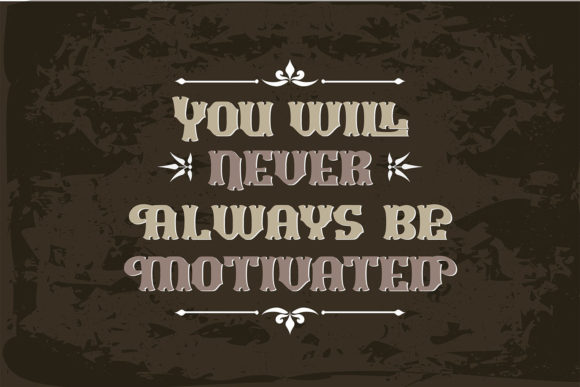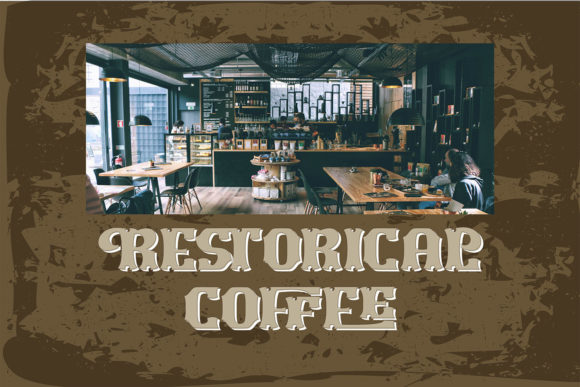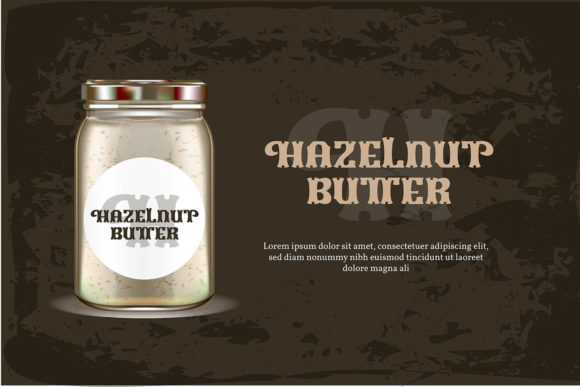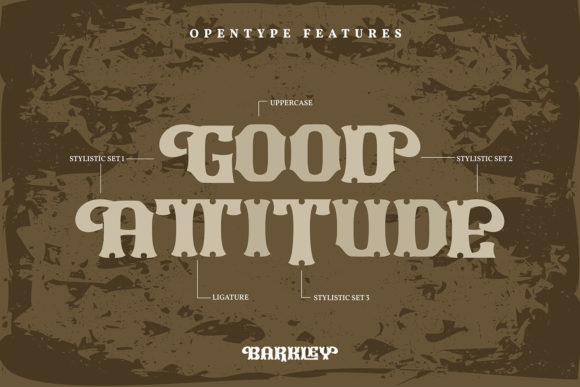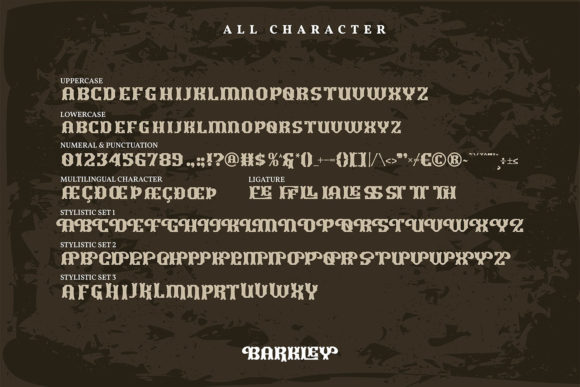
Barkley Font: Elevate Your Designs with a Vintage Flair
In the realm of typography, a font can make or break a design. It’s the backbone of any visual project, providing the tone, style, and overall aesthetic. For designers and crafters seeking a bold and vintage-inspired display font, look no further than Barkley. This stunning typeface is engineered to make your creative ideas shine, offering endless possibilities for a wide range of design applications.
The Distinctive Charm of Barkley Font
Barkley Font is a vintage-styled and bold display font that exudes a sense of nostalgia and sophistication. Its incredibly distinct design ensures that your projects stand out from the crowd, grabbing attention and leaving a lasting impression. Whether you’re working on a logo, poster, packaging, or any other visual material, Barkley is the perfect choice to add a touch of elegance and character.
Key Features of Barkley Font
- Bold and Eye-catching: Barkley Font is designed to make a statement. Its bold and sturdy structure ensures that your text is always visible and attention-grabbing.
- Vintage Inspiration: Drawing from classic typography, Barkley boasts a unique vintage flair that adds a touch of sophistication and nostalgia to your designs.
- Highly Versatile: From logos and branding to posters, flyers, and packaging, Barkley Font is incredibly versatile and can be used across various design projects.
- Easily Readable: Despite its bold nature, Barkley Font remains highly readable, making it perfect for headlines, titles, and short paragraphs of text.
Endless Design Possibilities with Barkley
One of the most significant advantages of Barkley Font is its adaptability. Designers and crafters can experiment with various design elements, such as colors, textures, and patterns, to create unique and captivating visuals. Here are a few ideas to get you started:
- Logos and Branding: Use Barkley Font to create memorable logos and brand identities that stand out in a crowded market.
- Posters and Flyers: Add a vintage touch to your promotional materials with Barkley Font, making them more engaging and effective.
- Packaging Design: Elevate your product packaging with Barkley’s distinctive style, making your products more noticeable on store shelves.
- Digital Media: Incorporate Barkley Font into your digital projects, such as social media graphics, website headers, and email newsletters, to add a professional and stylish touch.
Tips for Using Barkley Font Effectively
To maximize the impact of Barkley Font, consider the following tips:
- Pair with Complementary Fonts: Combine Barkley Font with simpler, sans-serif fonts to create visual contrast and hierarchy in your designs.
- Experiment with Colors: Take advantage of Barkley’s bold nature by experimenting with vibrant colors and gradients that enhance its vintage appeal.
- Play with Textures: Add depth and interest to your designs by incorporating textures and patterns that complement Barkley Font’s distinctive style.
Barkley Font is a powerful tool for designers and crafters seeking to add a vintage flair to their projects. Its bold, eye-catching design and versatility make it an excellent choice for a wide range of applications. By incorporating Barkley Font into your design arsenal, you’ll unlock endless possibilities for creating stunning visuals that leave a lasting impression. So why wait? Explore the creative potential of Barkley Font today and take your designs to the next level.